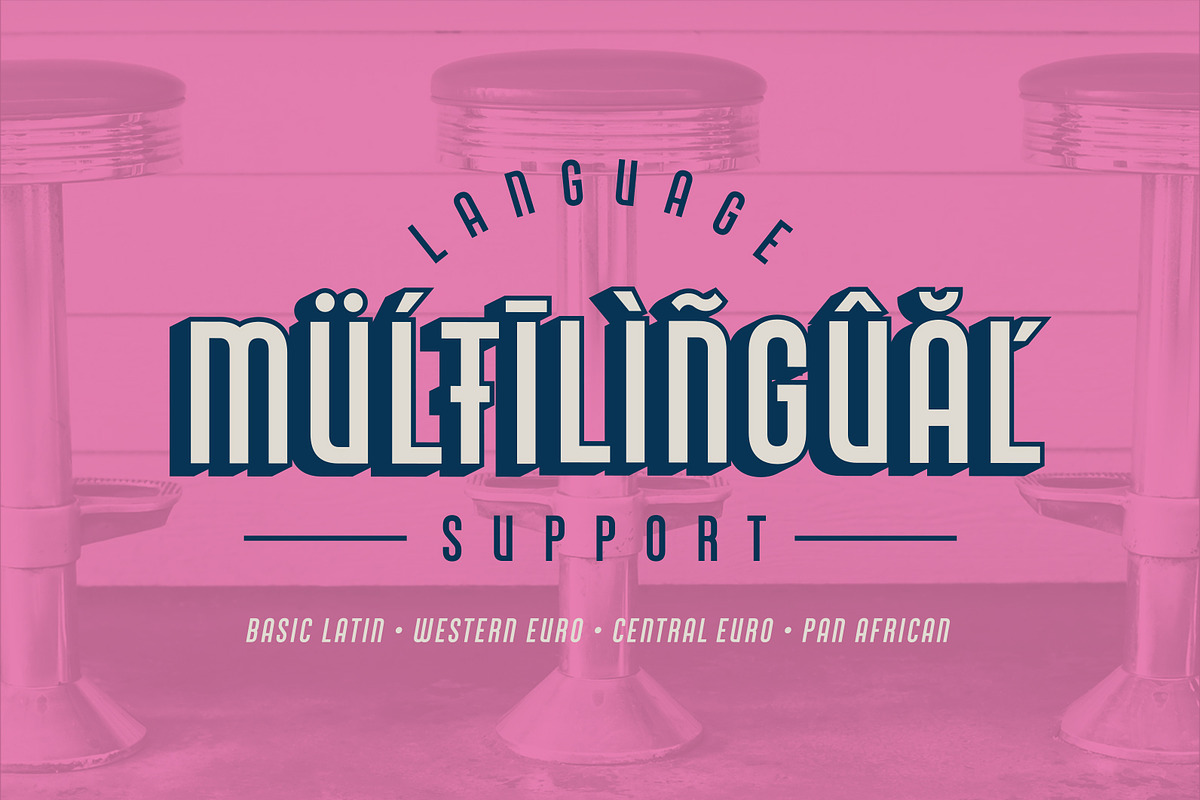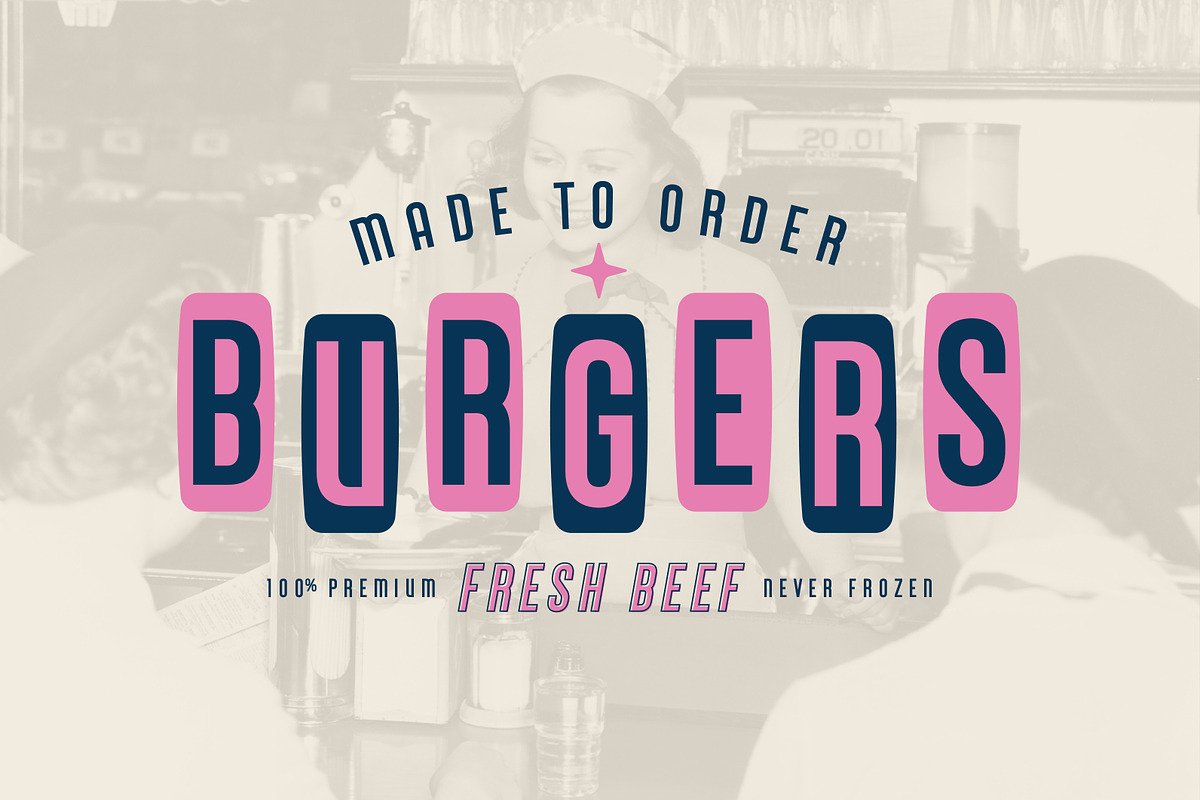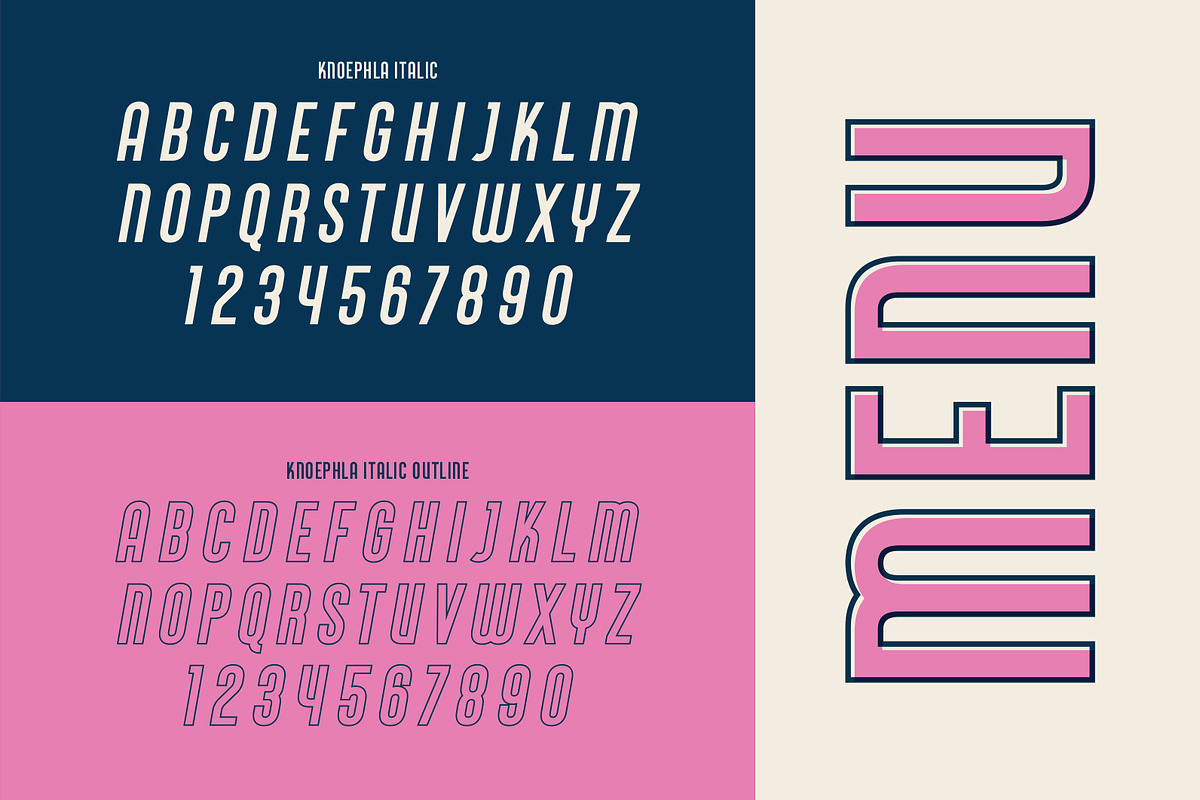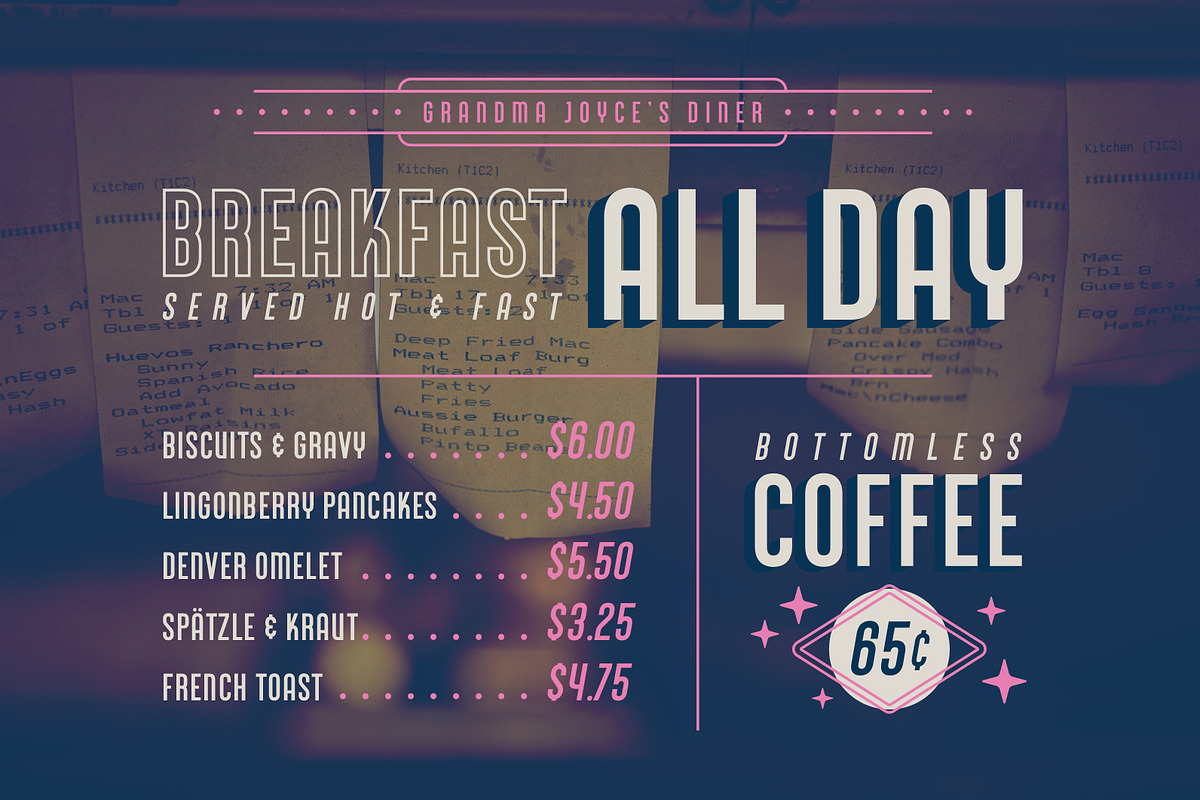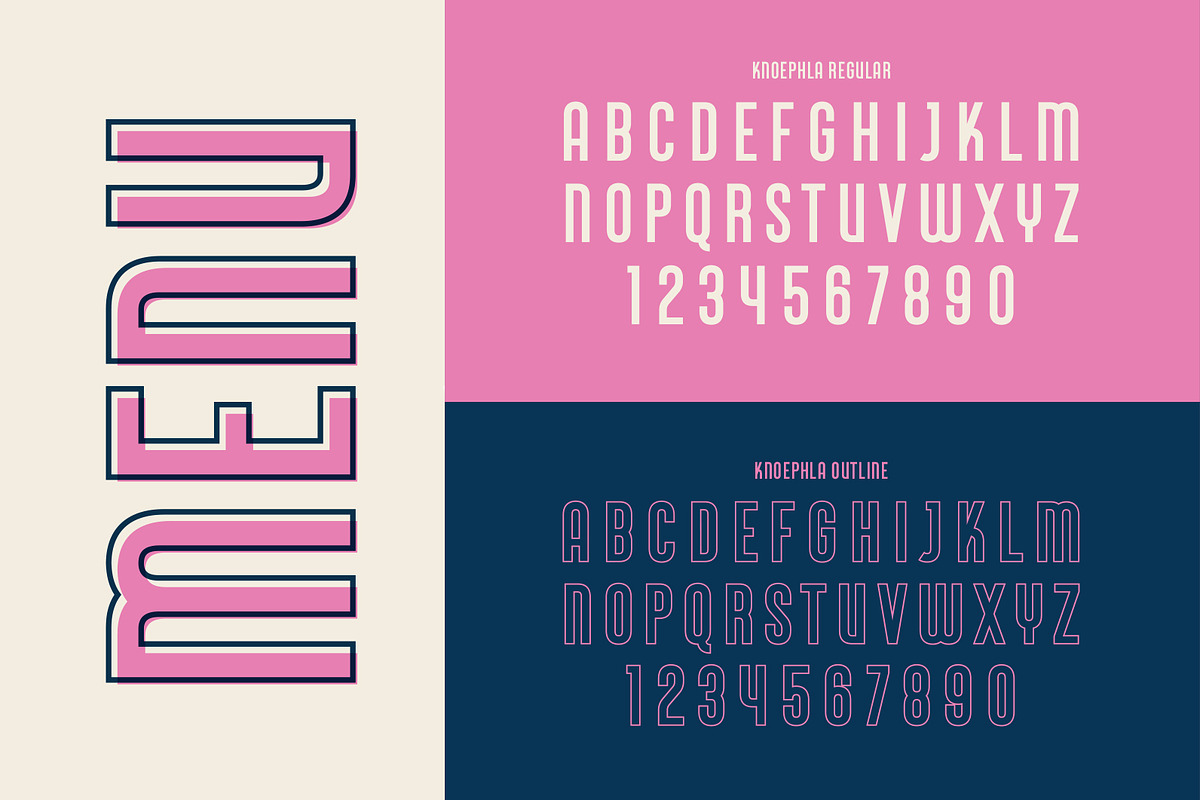
Knoephla Font Collection - 4 Styles
Knoephla (pronounced NEFF-luh) is a display typeface that's as hearty as the dish it's named after.
Inspired by 1960s diner signage from the upper Midwest, the generously spaced glyphs and letterforms of Knoephla will give any design a warm, "vintagey" feel. These fonts were designed to work perfectly on any branding, packaging, video, or social media project that might need a nice little dash of nostalgia, and the four different variations offer up a heaping helping of versatility when used in conjunction with one another.